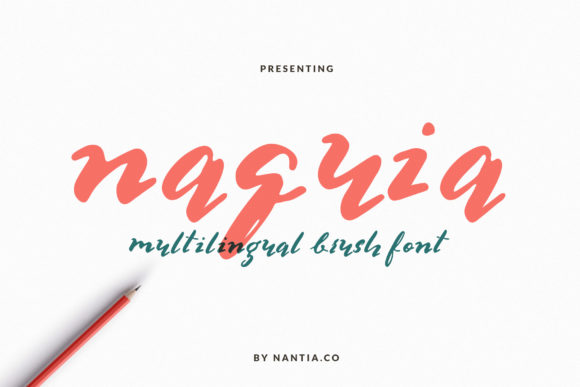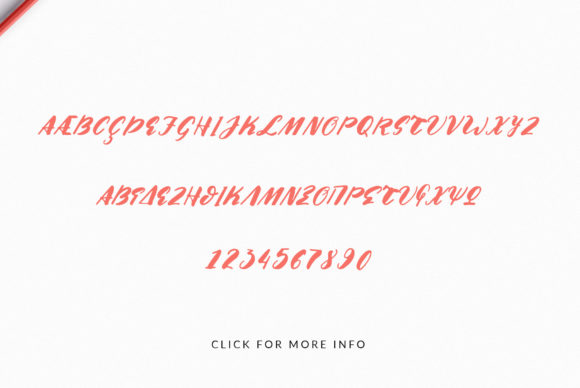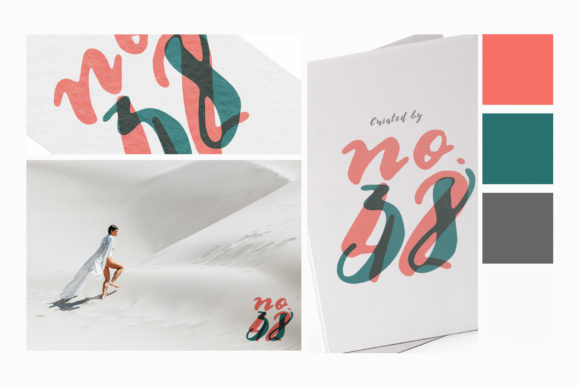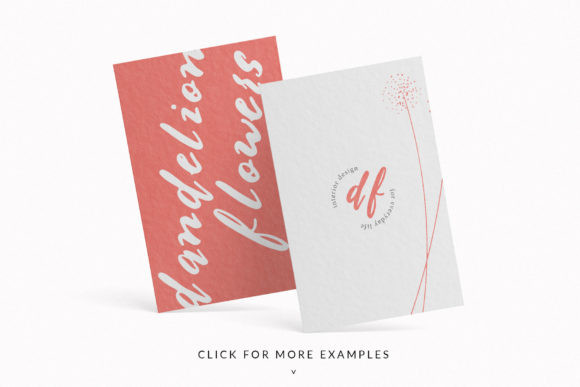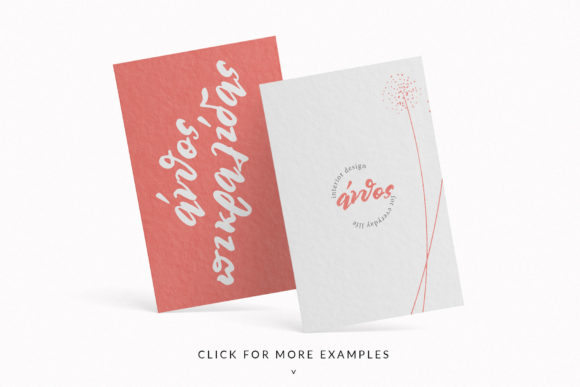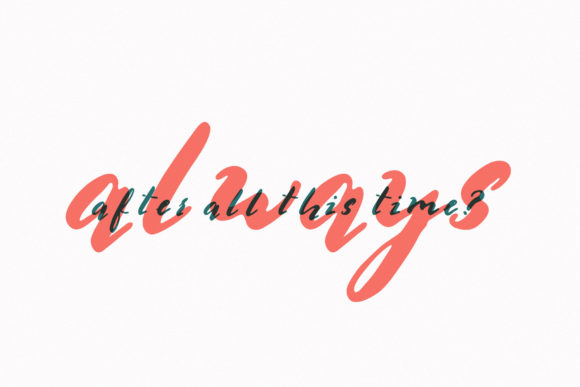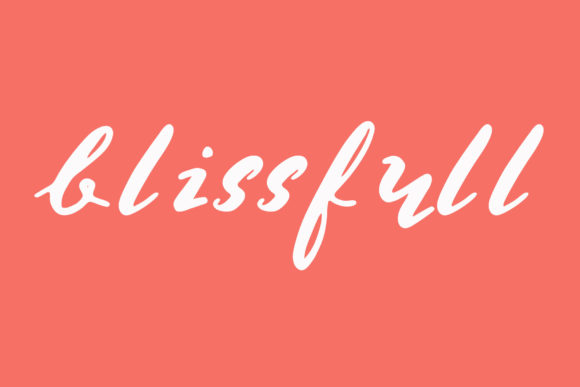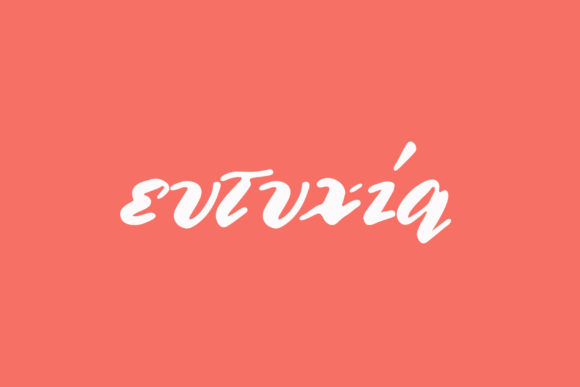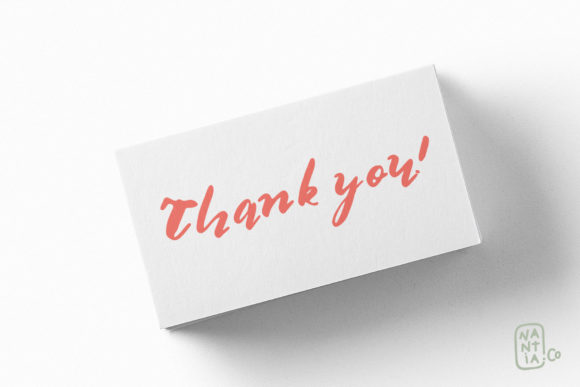
HomeScript FontsNaquia Font Script Fonts Naquia Font FacebookXPinterestWhatsApp Naquia Font Poster 2 Naquia Font Poster 3 Naquia Font Poster 4 Naquia Font Poster 5 Naquia Font Poster 6 Naquia Font Poster 7 Naquia Font Poster 8 Naquia Font Poster 9 About Naquia Font Naquia is a light and easy script with a casual charm. It will turn any design project into a standout! DOWNLOAD ON CREATIVE FABRICAThis font is sold and delivered by Creative Fabrica. Font Canyon may earn a commission if you buy through this link. People also explored Esmeralda Script Font Handmade Font Rakigae Font Azhitromicin Font Wildflowers Font Doglas Font Relpa Font Dear Green Font BM Graphics – Graphic Shapes Glyph Font 539 0 TagsNaquia Font Previous articleRudolf Sleigh FontNext articleBrittalia Script Font LEAVE A REPLY Cancel reply Comment: Please enter your comment! Name:* Please enter your name here Email:* You have entered an incorrect email address! Please enter your email address here Website: Save my name, email, and website in this browser for the next time I comment. Personal Use Free Densmore Personal Use Free Read more about this font Hello, How Are You? Personal Use Free Read more about this font Lovetle Personal Use Free Read more about this font Concrete Wall Personal Use Free Read more about this font BLOG To increase your work productivity, choose the most readable fonts. In today's fast-paced work environment, where digital communication and information consumption are integral to our daily routines, the choice of fonts can significantly impact... Modern Sans-Serif Fonts That Brands Love in 2025 How to Cut Any Font on Cricut: Convert a Font to SVG (Free) Free vs Paid Fonts: Why Investing in Premium Fonts Is Worth It